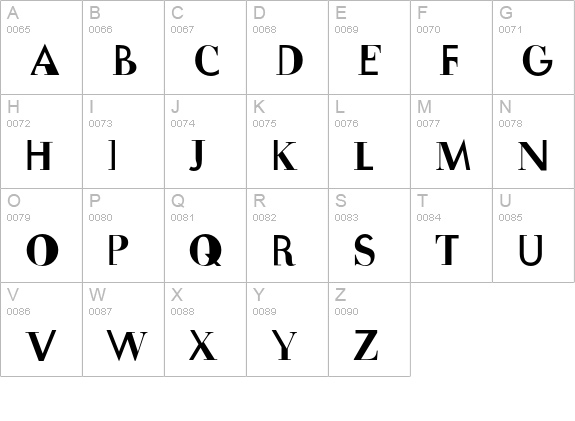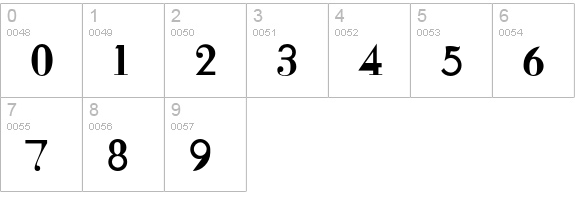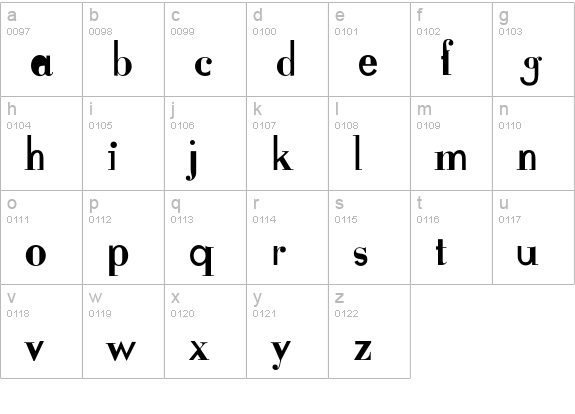
FudoniTwo font is a sleek and modern typeface that exudes sophistication and elegance. Its clean lines and stylish curves make it perfect for a wide range of design projects, from branding to editorial design. The font features a unique blend of classic and contemporary elements, giving it a timeless appeal that is sure to make your work stand out. What's even better is that FudoniTwo font is available for free download at FontsMarket.com. This means you can easily access this stunning font and use it in your projects without any cost. So why wait? Elevate your design game with FudoniTwo font today and let your creativity shine.